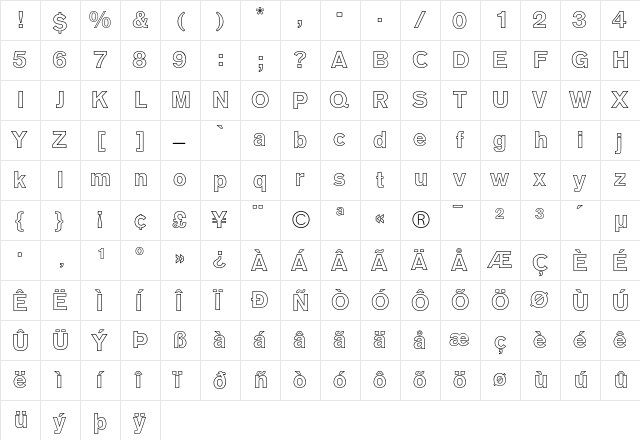
AG Old Face Bold Outline
Design Context for AG Old Face Typeface
AG Old Face brings ornamental detail and strong personality to headlines and identities, where visual impact matters more than quiet functionality. The heavy weight commands attention and anchors typographic hierarchies.
Font Pairing: Pair with a clean neutral sans-serif for body copy to let AG Old Face's character lead without overwhelming the composition.
Pro Tip: Use AG Old Face exclusively at display sizes — it was designed to be seen, not read at length. Let a neutral companion handle body copy.